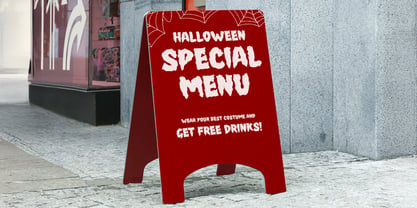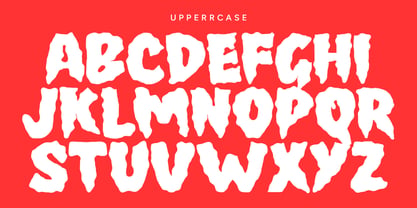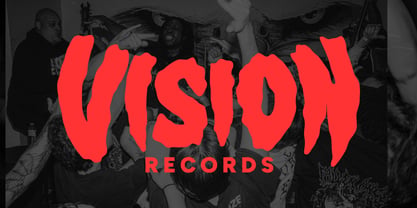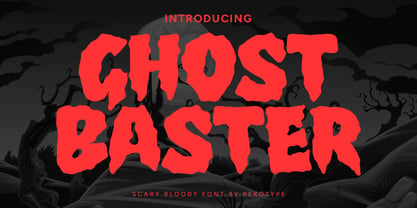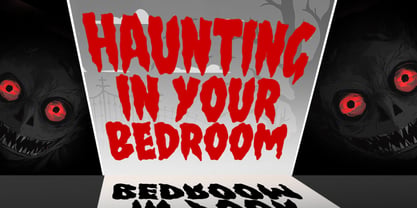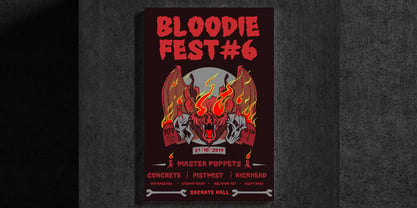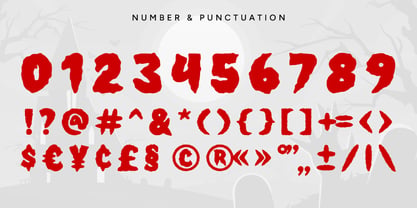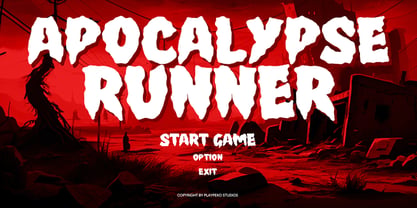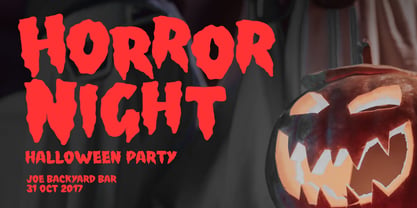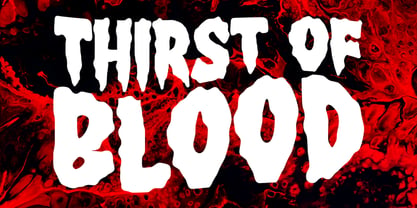
Ghost Baster
by Pekotype
The Ghost Baster Font Family was designed by Galang Bryan and published by Pekotype. Ghost Baster contains 1 styles. More about this family
GHOST BASTER is a bold horror display font designed to bring a spooky and dramatic feel to your projects. With its creepy shapes and horror-inspired style, it’s perfect for Halloween posters, horror movie titles, game designs, event promotions, branding, and social media content. Easy to use and full of character, GHOST BASTER helps create eye-catching designs with a dark, chilling atmosphere that instantly stands out.
Designers: Galang Bryan
Foundry: Pekotype